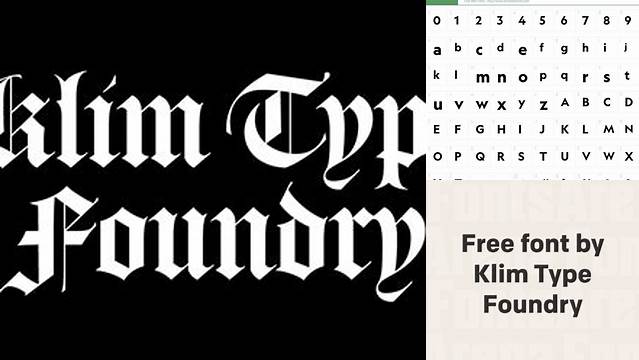
Klim Type Foundry Fonts: Free Downloads & Copyright
Hey everyone! Let's dive into the world of Klim Type Foundry fonts, specifically focusing on how you can get your hands on them, and, importantly, understanding the copyright stuff. Finding fonts you love is a thrill, but making sure you're using them legally is super important too. We'll explore the options for free downloads and clarify the ins and outs of copyright so you can design with confidence. This guide is designed to be a friendly and helpful resource, so whether you're a seasoned designer or just starting, stick around – you're in the right place!
H2: Exploring the Klim Type Foundry Font Universe
Alright, so you've heard the name, Klim Type Foundry. But what exactly is it? Klim is a renowned type foundry, based in New Zealand, known for crafting beautiful and highly functional fonts. They're not just creating letters; they're designing entire systems of communication. Founded by Kris Sowersby, Klim Type Foundry has quickly gained a reputation for its distinctive designs, blending both modern and classic influences. Their fonts are used by designers around the globe, appearing in everything from high-end branding to editorial design. Klim's commitment to quality and detail is evident in every glyph they produce. They don't just make fonts; they build typefaces that tell stories. Their range is diverse, catering to various needs, whether you're looking for something bold and eye-catching or refined and elegant. When you choose a Klim font, you're not just picking a typeface; you're selecting a piece of meticulously crafted design. In the world of fonts, Klim stands out because of their dedication to pushing boundaries and creating fonts that are both aesthetically pleasing and incredibly practical. The Klim Type Foundry fonts have become a staple for designers who demand both style and substance in their typographical choices. Their popularity speaks volumes about the quality and versatility of their offerings.
H3: Diving Deep into Klim's Signature Styles
Let's take a closer look at the styles that make Klim Type Foundry special, shall we? Klim's font library has something for every project. One of their most popular families is 'Tiempos', renowned for its versatility and readability. Tiempos comes in a variety of weights and styles, making it perfect for everything from body text to headlines. Then there's 'Grotesk', a modern sans-serif font that is clean, functional, and ideal for contemporary design. Grotesk embodies a timeless simplicity, ensuring your message is communicated clearly and stylishly. They also have fonts like 'National' that evoke a sense of authority and are often used in branding projects. They also offer the 'Feijoa' typeface which is known for its unique personality, bringing a touch of individuality to any design. Moreover, Klim also creates fonts with a strong emphasis on detail and legibility, ensuring they look amazing on various displays and print mediums. Their designs often have a distinct personality, which is important to stand out in today's competitive design field. Each font is meticulously crafted, ensuring exceptional quality and performance. Their fonts are designed to meet high standards. Klim Type Foundry creates fonts that are not only visually appealing but also functional. When exploring their catalog, you'll notice an impressive range, from highly stylized display fonts to versatile workhorses suited for extensive text use. Understanding these different styles helps you choose the perfect Klim font for your project. Whether you are working on a brand identity project or designing a website, the diversity of Klim’s fonts allows you to find a style that perfectly matches your design vision.
H2: Where to Officially Download Klim Type Foundry Fonts
Ready to get your hands on some fantastic Klim Type Foundry fonts? The best place to find them is, unsurprisingly, the Klim Type Foundry website itself. This is the most direct and secure way to ensure you're getting legitimate, properly licensed fonts. When you visit their website, you'll find a carefully curated selection of their typefaces. The website usually provides detailed information about each font family, including its features, weights, and potential uses. You can also find all the details about the licenses, pricing, and download options. Another reputable source for Klim Type Foundry fonts is MyFonts, a popular platform for font sales and distribution. MyFonts is known for its extensive collection of fonts from various foundries. It's a reliable platform that provides secure downloads and detailed license information. You can also check other authorized font retailers, such as Fontspring. These are authorized sellers that often come with guarantees, offering a secure transaction. When using these platforms, always double-check the licensing details and download only from trusted sources. Prioritize the official website and authorized resellers to ensure the authenticity and legality of your fonts. It also supports the designers. Ensure you adhere to their copyright conditions.
H3: Navigating the Klim Type Foundry Website for Font Downloads
Let's walk through how to find and download fonts from the Klim Type Foundry website. First, navigate to the official website. Look for the 'Fonts' section or a similar menu, which should lead you to the list of available typefaces. Each font family is usually presented with a name, previews, and brief descriptions. You can explore the different styles and weights of each font family by clicking on its name or preview. This will take you to the font's dedicated page, where you can find more details. The font's page will usually provide information about the license options, which is important for your needs. You'll see different license types (e.g., desktop, web, app) that meet your different purposes. Carefully review the license details before making your purchase. Select the license that matches your intended use. The license will tell you everything about the specific copyright details you must follow. After choosing your license, follow the prompts to add the font to your cart and proceed to checkout. You'll typically be asked to create an account or log in. You'll also have to provide your payment information. The website is always secure. After completing your purchase, you'll receive an email with a download link. Your fonts are ready. Always keep your fonts in a safe place. Downloading and installing fonts is a straightforward process. The official website ensures a safe and user-friendly experience, giving you direct access to high-quality fonts. This guide will help you, guys.
H3: Key Takeaways for Safe and Legal Font Usage
Let's recap the most important takeaways for using Klim Type Foundry fonts safely and legally. First, only download fonts from official sources or authorized resellers. This is your guarantee that the font is legitimate and licensed for your use. Carefully read and understand the font license agreement before using any font. Pay close attention to the terms and restrictions. Ensure that the license covers your intended use, such as print design, web use, or commercial projects. Document all font licenses and usage rights. Keep a record of the fonts you have used and the licenses you have purchased. This will help you stay organized and comply with the license terms. Respect copyright laws. Always credit the font designer. If you're unsure about anything, seek clarification from the font foundry or a legal professional. This proactive approach helps you avoid any potential legal issues. Stay informed about the latest trends in font licensing and copyright. This will help you adapt to the evolving landscape of digital design. By following these simple rules, you can ensure that you are using fonts legally and protect your creative work. It is important to do this for the long term. Also, by using fonts with permission, you'll contribute to the creativity of the design.